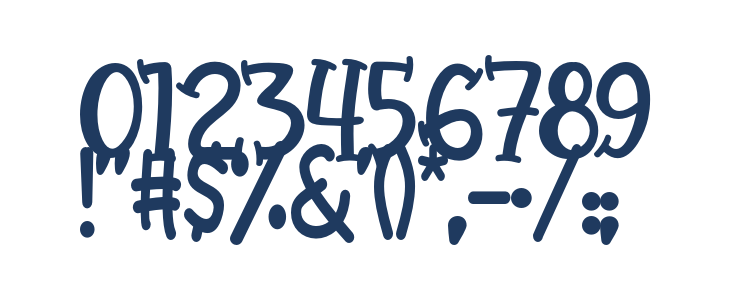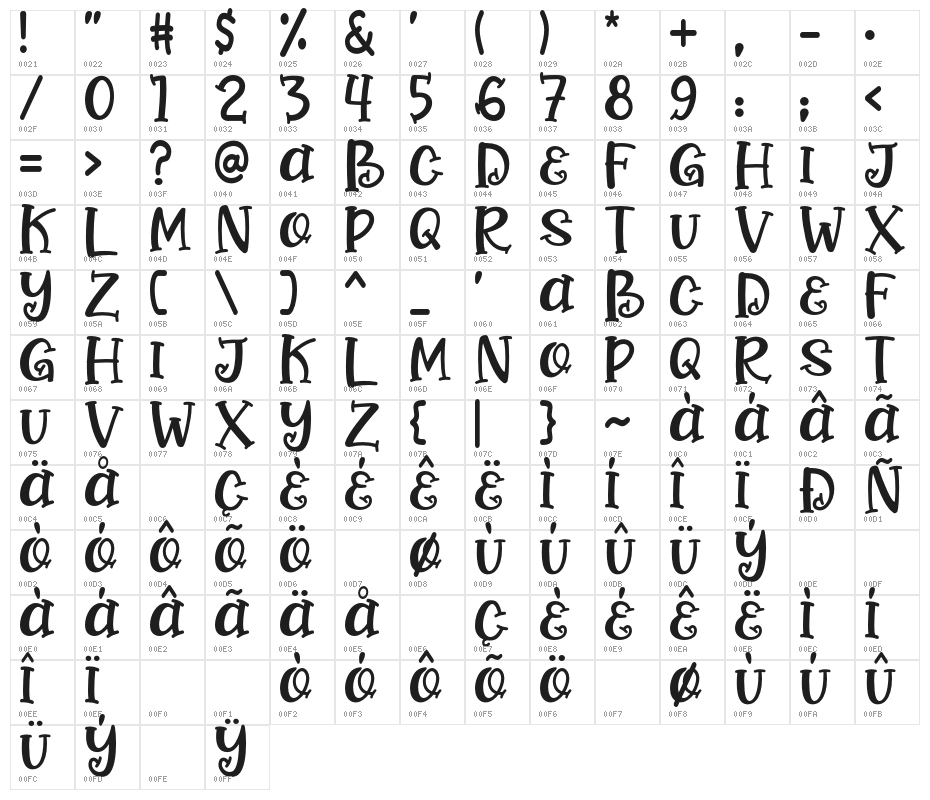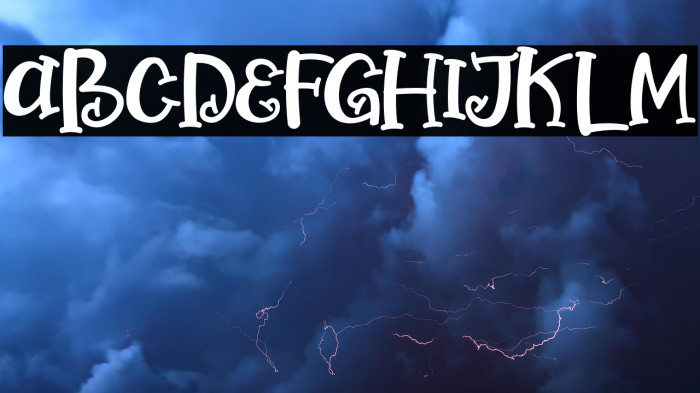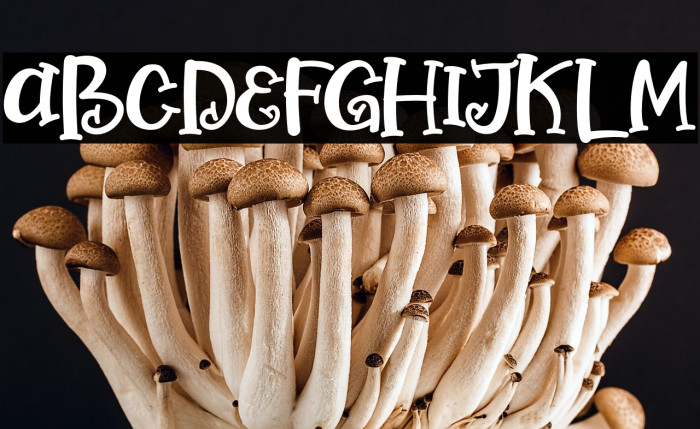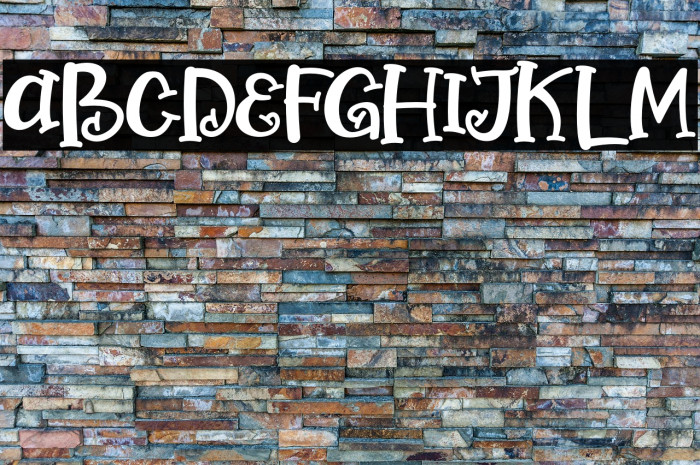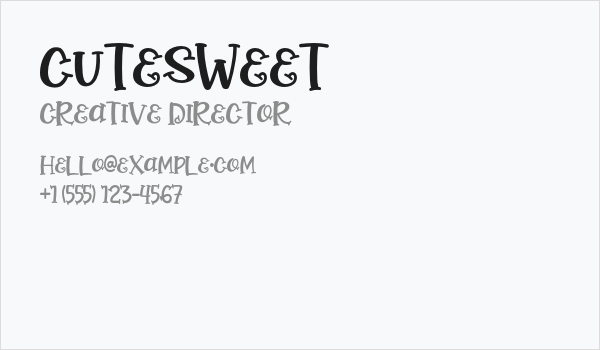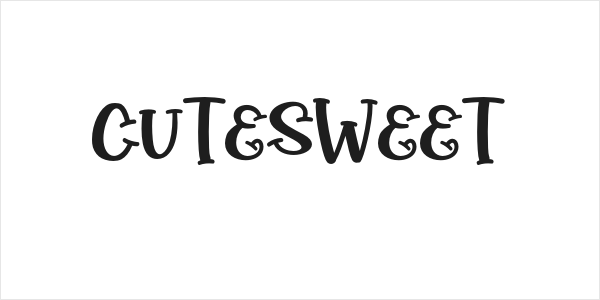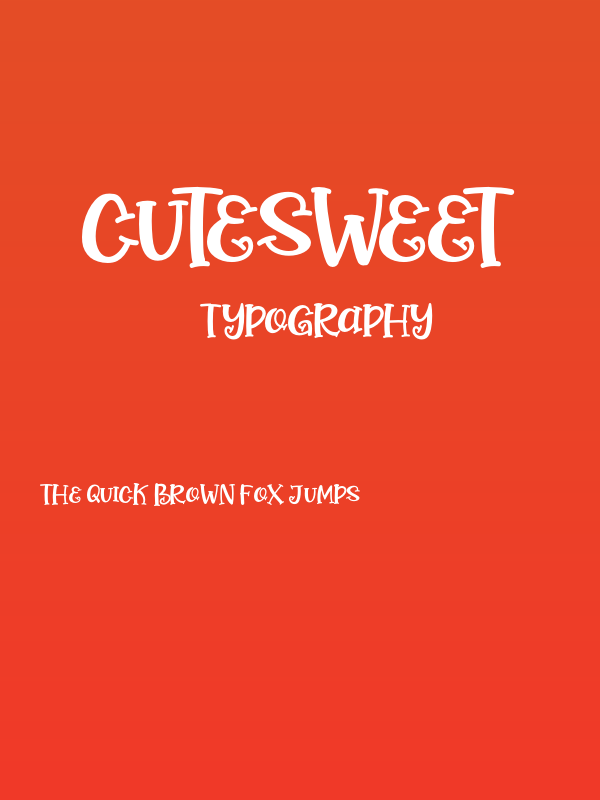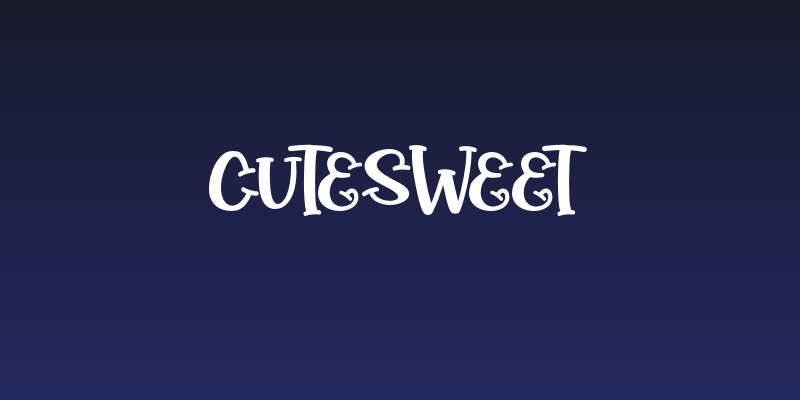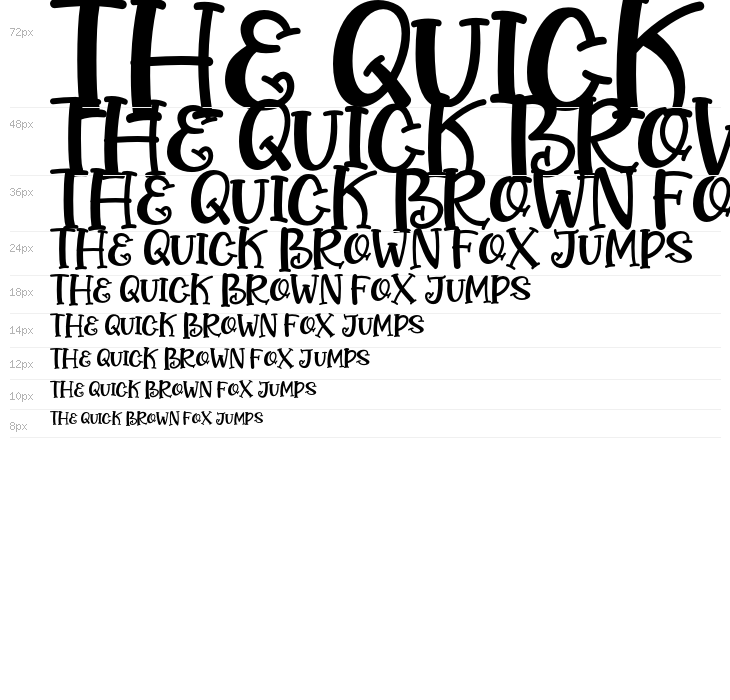
CuteSweet Font
CuteSweet Description
This playful and whimsical font features a handwritten style with a bold and energetic flair. The characters are characterized by their rounded edges and slightly exaggerated curves, giving them a friendly and approachable appearance. The uppercase and lowercase letters maintain a consistent style, with a slight tilt that adds to the casual feel. The numbers and special characters are equally playful, with unique touches that enhance the overall charm. This font is perfect for projects that require a fun and lively aesthetic, making it ideal for children's books, playful branding, or creative invitations.
| Proposed Projects | Ideal for children's books, playful branding, creative invitations, and casual posters. |